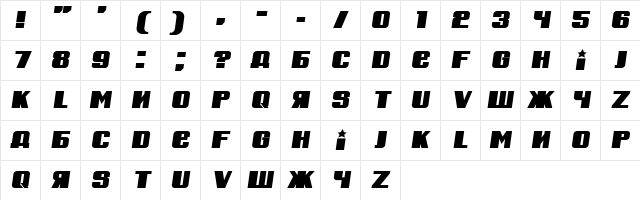
Russian Spring Bold Italic
Design Context for Russian Spring
Russian Spring is a composed and adaptable typeface that performs quietly and consistently across a wide range of design contexts. The slanted form adds forward momentum and visual energy. Its bold stroke weight gives it real presence on the page.
Pro Tip: Use Russian Spring for emphasis, pull quotes, and subheadings where its slanted energy can add rhythm to the layout.